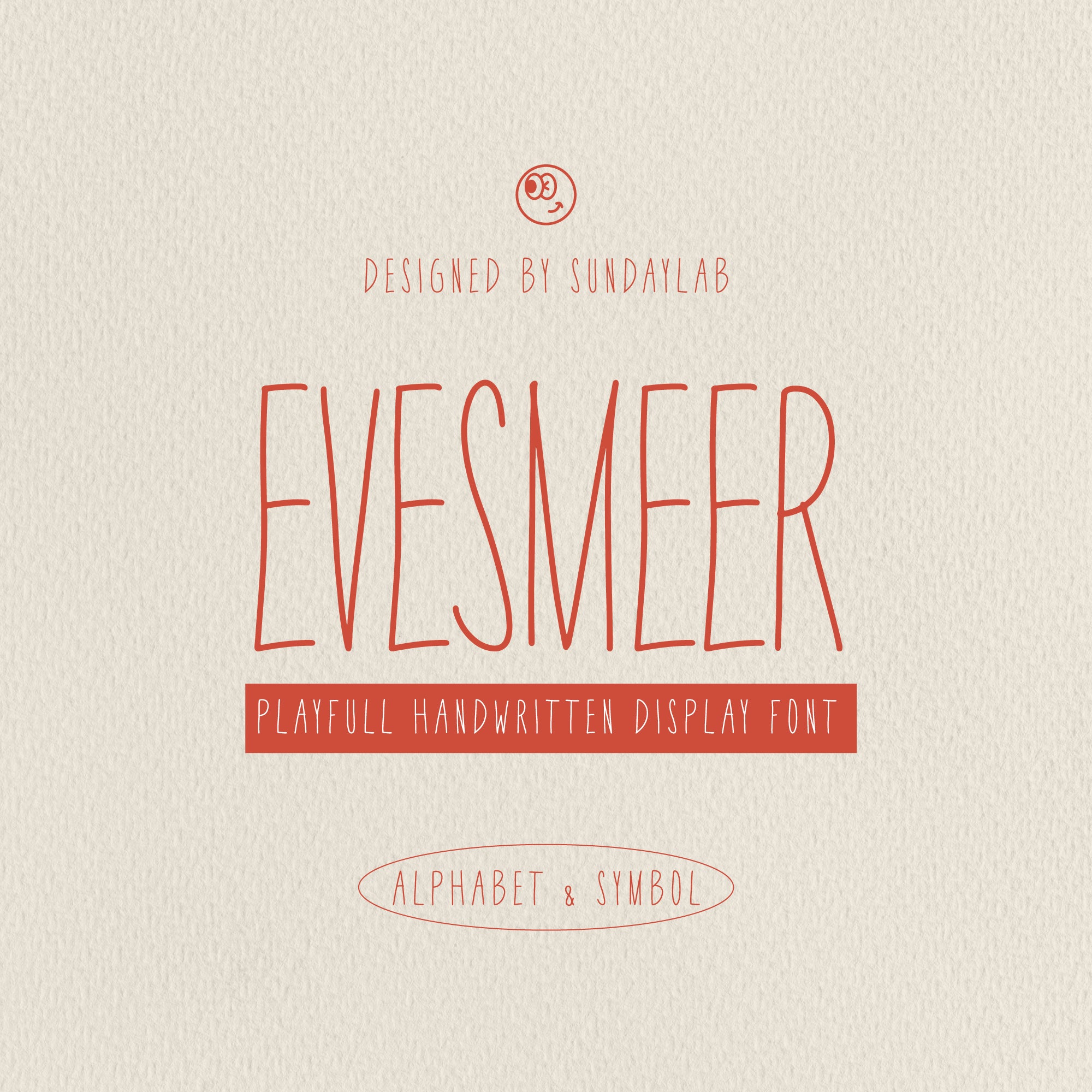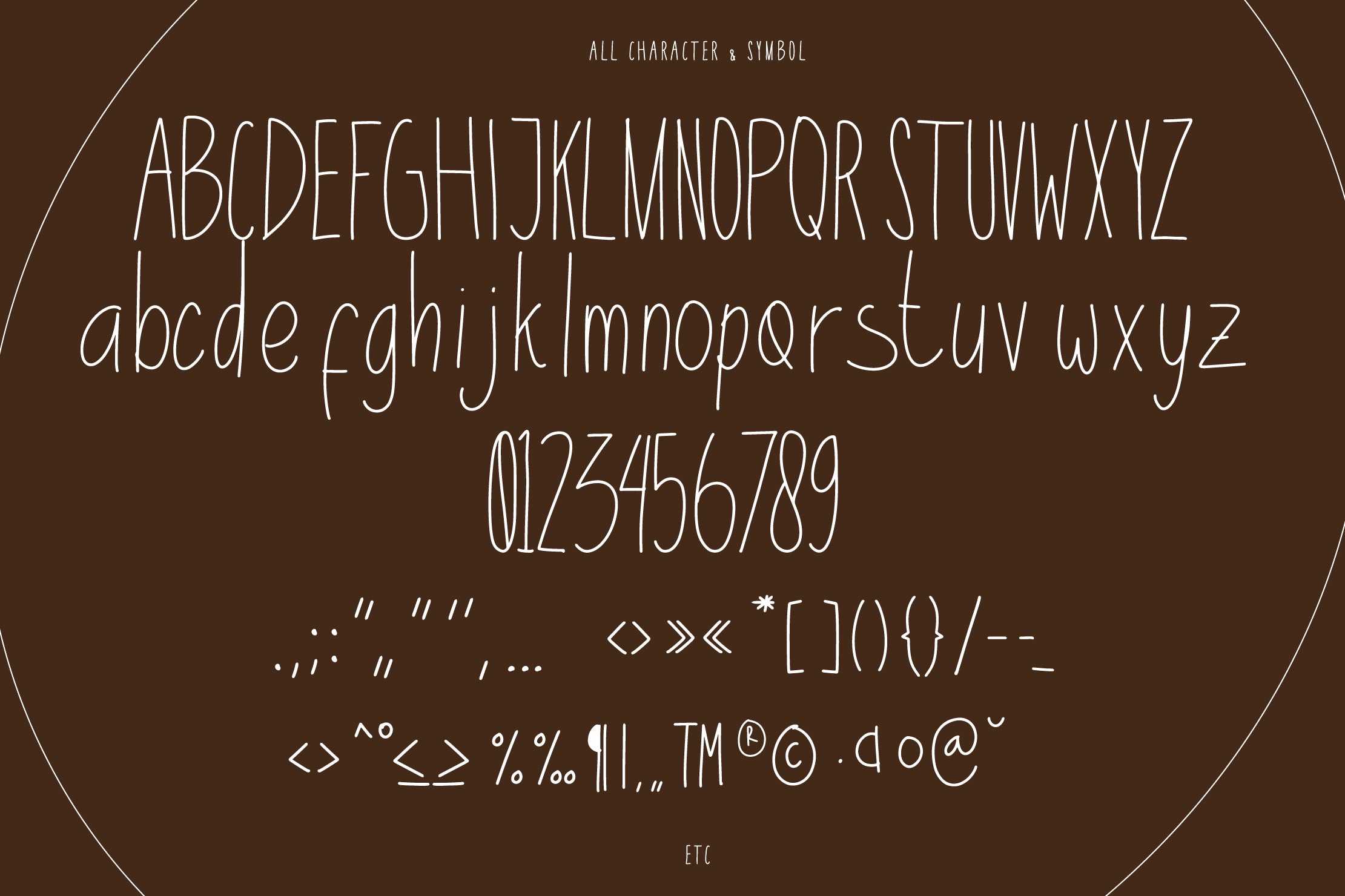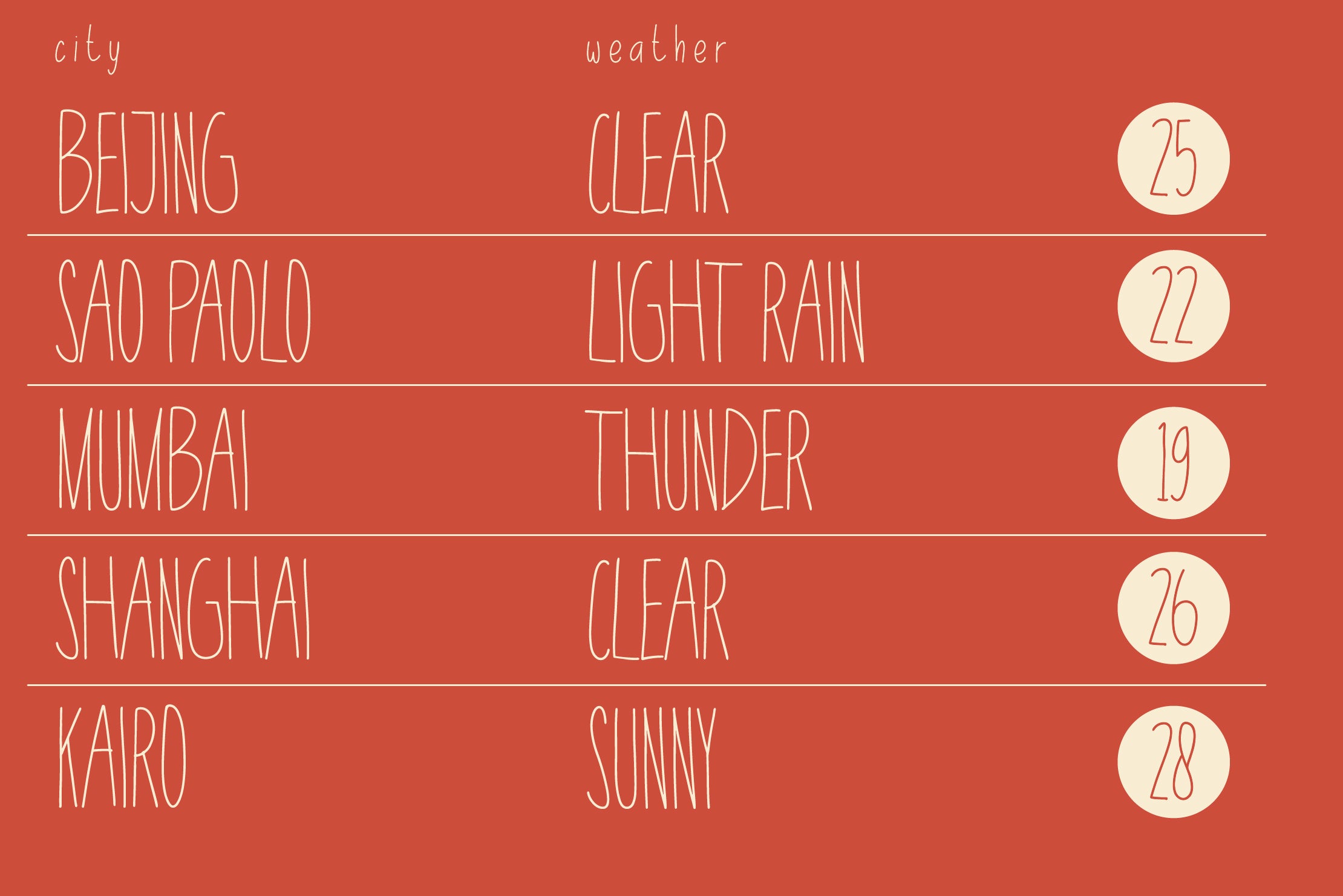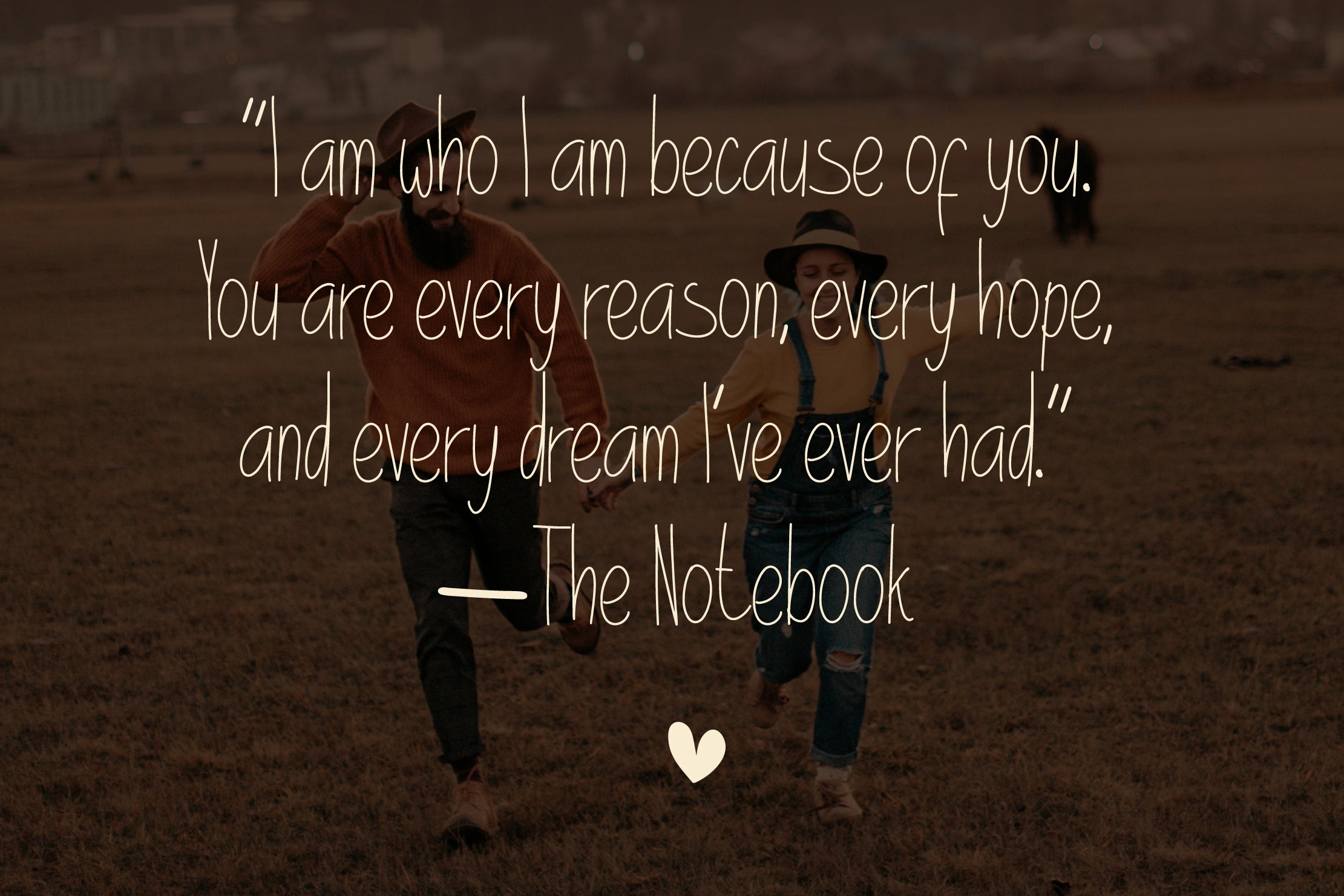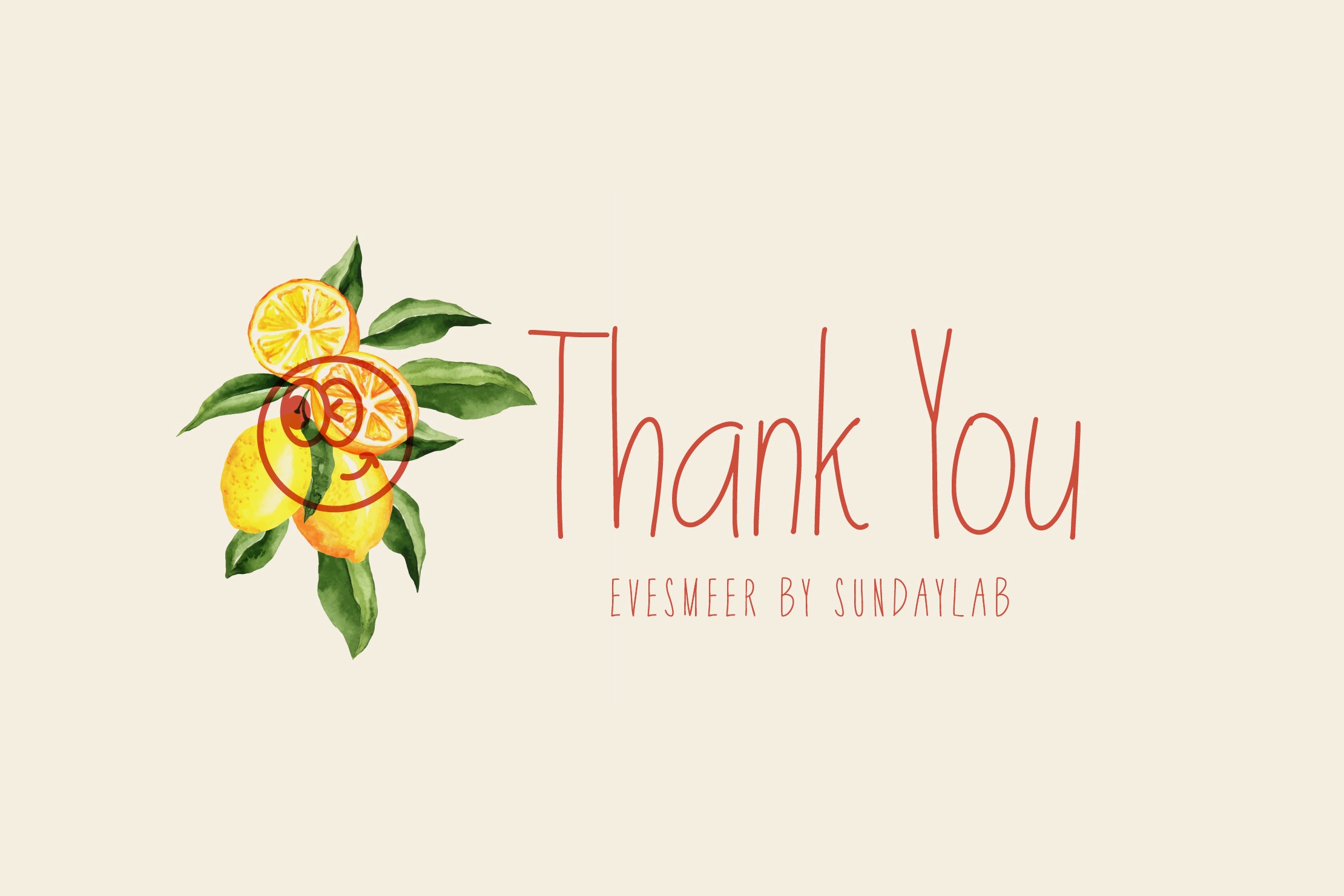
Evesmeer Handwritting Typeface
Evesmeer is a playful handwritten display typeface designed with a tall, slender, and expressive handwritten character. Its delicate monoline construction gives it a casual yet elegant personality, making it perfect for designs that need a personal and creative touch.
With its distinctive handwritten appearance, Evesmeer works beautifully for quotes, wedding invitations, greeting cards, logos, branding, packaging, stationery, posters, social media graphics, apparel, and lifestyle projects.
The extended letterforms create an airy and contemporary look, while the natural handwritten feel keeps the typography approachable and expressive. Evesmeer can be used as a standalone display font or paired with clean serif and sans serif fonts for more versatile layouts.
The font includes uppercase, lowercase, numbers, punctuation, and various symbols, making it flexible for both short headlines and longer creative compositions.
Evesmeer is a handwritten display typeface featuring tall, slender letterforms with a monoline construction. It includes uppercase, lowercase, numbers, punctuation, and various symbols, provided in .otf and .ttf formats with a Read Me file.